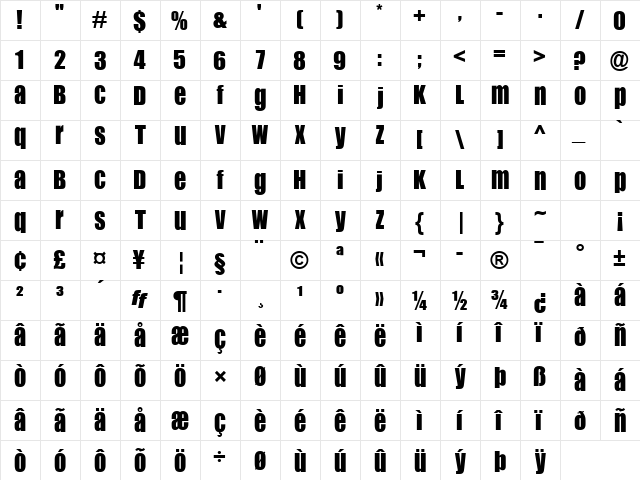
Flip Flop Royal Regular
Design Context for Flip Flop Royal Typeface
Flip Flop Royal is a composed and adaptable typeface that performs quietly and consistently across a wide range of design contexts.
Pro Tip: Use Flip Flop Royal in both headline and body roles to test its range before committing to a single application.